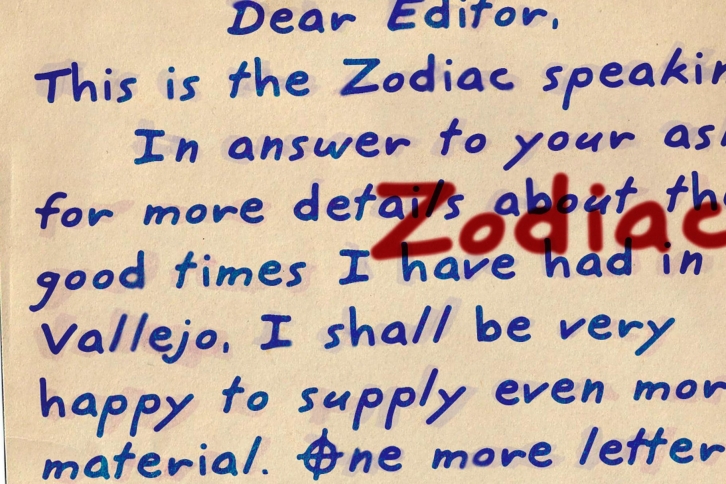
Murderino fonts by La Lettre de Luxe are inspired by some of our time’s most infamous murders and the My Favorite Murder podcast community.
After reviewing case materials and prison correspondence from dozens of high-profile cases, Zodiac was designed to recreate the feeling of haunting notes written by the still-unknown Zodiac Killer and directed to investigators. (Zodiac is also part of the original Murderino font family, a value-priced bundle of three distinct macabre typefaces.)
Designed by April Carter Grant and built by La Lettre de Luxe.